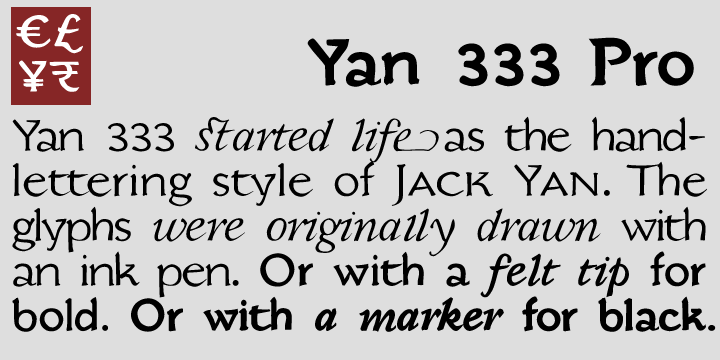
Yan 333
Font Family by JY&A
Buy NowJY&A's most distinctive calligraphic font, Yan Series 333 is usable at all resolutions and remains legible.
Even though it has a strong calligraphic influence, the Yan Series is ideal for text settings that have to appear special.
Designed by Jack Yan, the family was developed between 1987 and 1993. Yan studied the effect of a nylon-tip, rather than steel-nib, pen on paper.